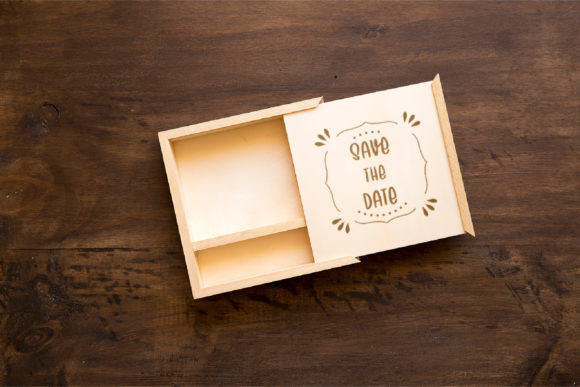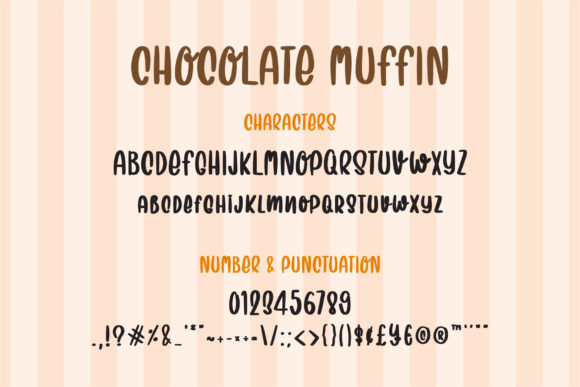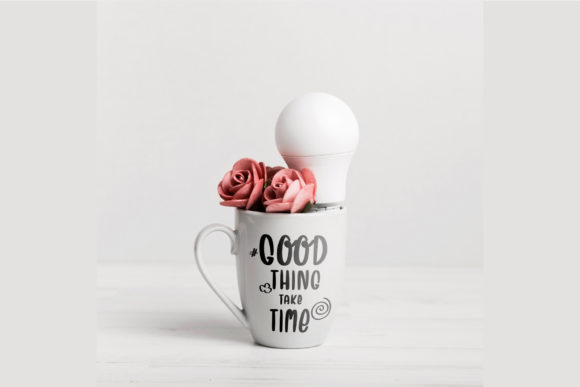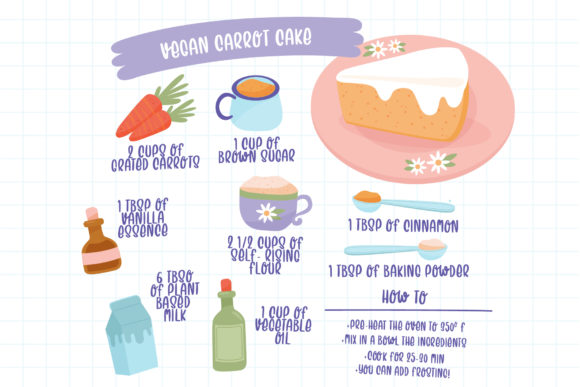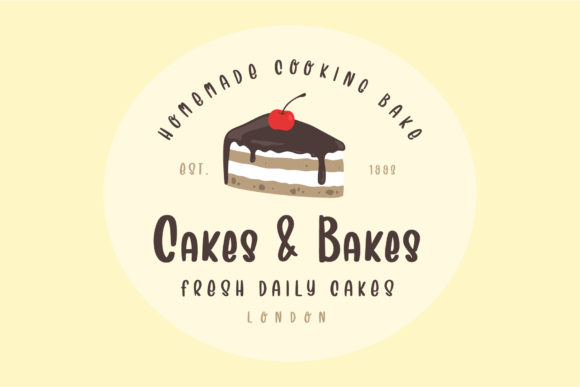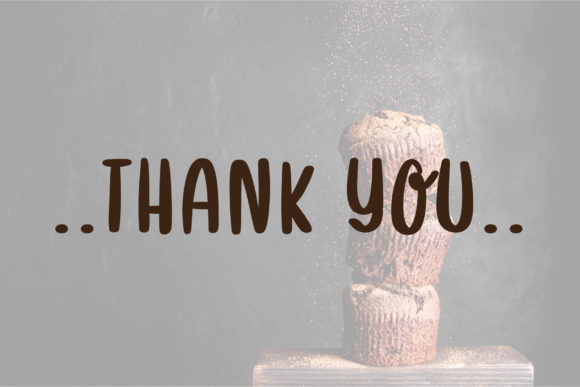
Introduction to Chocolate Muffins Font
Chocolate Muffins is a cute and friendly handwritten font.
A little bit quirky, this font looks incredibly adept on a wide variety of contexts .
Key Features of Chocolate Muffins Font